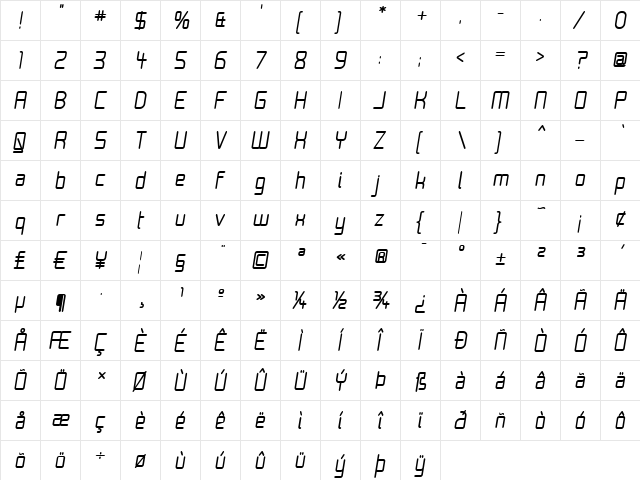
Moondog Thirty Italic
Design Context for Moondog Thirty Typeface
Moondog Thirty offers clean, dependable letterforms without strong stylistic allegiance, making it a practical choice for designers who need flexibility. The dynamic lean of this cut emphasises speed and emphasis in any layout.
Pro Tip: Try Moondog Thirty for annotation and caption copy alongside an upright companion — the contrast in angle creates a dynamic but ordered typographic system.